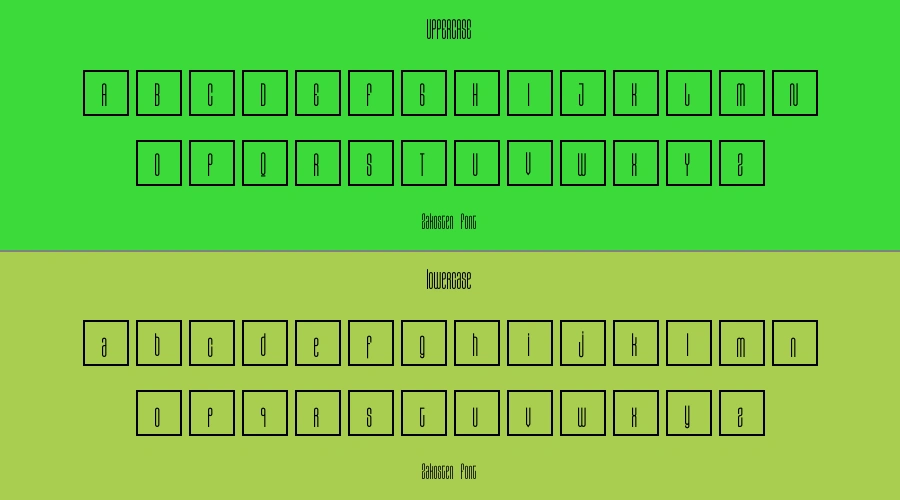
About Zakosten Font
Designed with precision, Zakosten Font merges pen-inspired details with refinement in every character. This versatility makes it particularly effective for packaging hero, where adaptability and consumer connection directly impact communication quality. Each letterform demonstrates meticulous craftsmanship.
Technical excellence shines through elements like engineered curves and automatic fractions, enhancing typographic versatility. In brand logos settings, Zakosten Font proves its worth through superior numerical alignment. The thoughtful execution of bowl shape and historical reference ensures professional results.